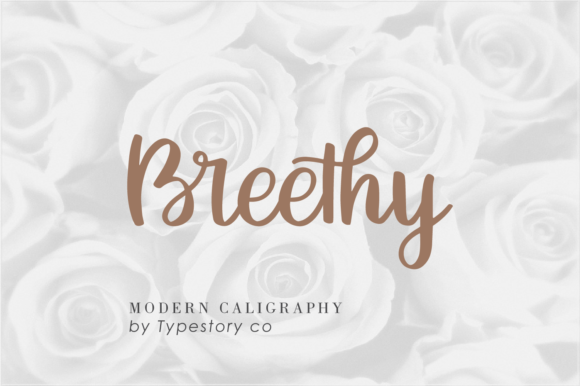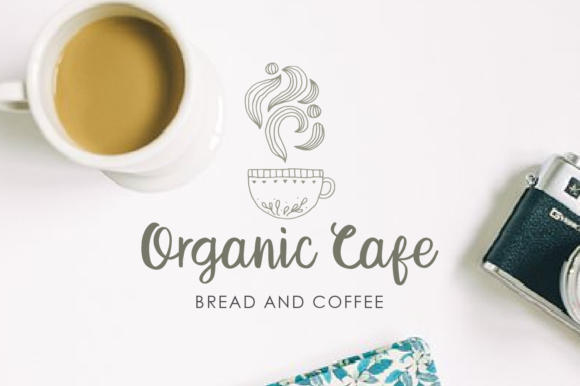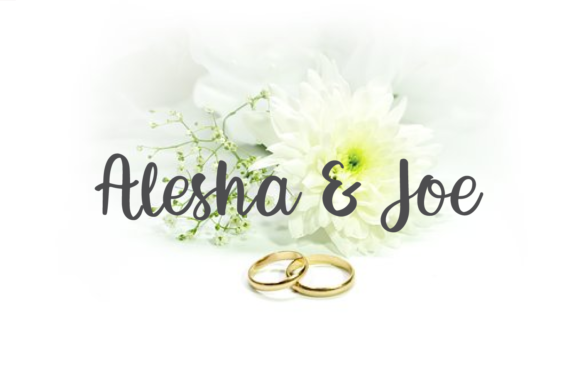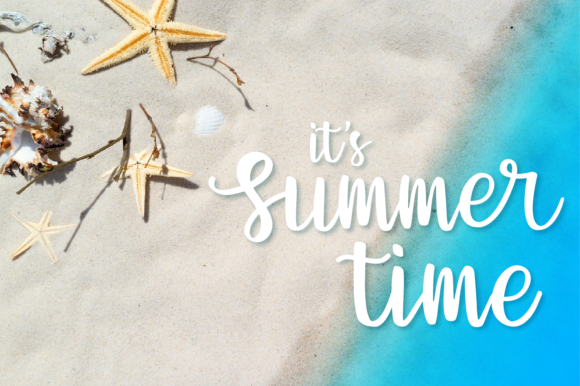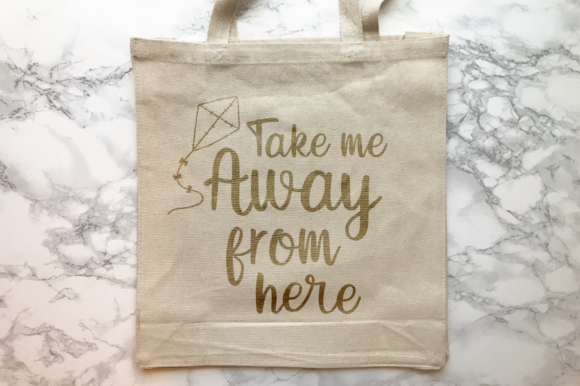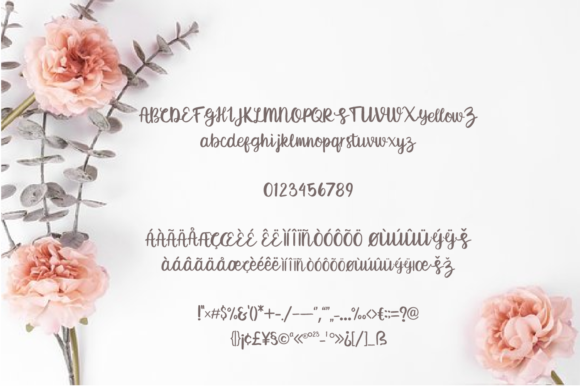
HomeScript FontsBreethy Font Script Fonts Breethy Font FacebookXPinterestWhatsApp Breethy Font Poster 2 Breethy Font Poster 3 Breethy Font Poster 4 Breethy Font Poster 5 Breethy Font Poster 6 About Breethy Font Breethy is inspired by modern calligraphy, making it the ideal crafting font! DOWNLOAD ON CREATIVE FABRICAThis font is sold and delivered by Creative Fabrica. Font Canyon may earn a commission if you buy through this link. People also explored Shemory Font Bastian Melany Font Betterlove Font Vine Font Lipstick Font Cantika Prilia Font Oystersvelt Font Antique Font Activity Font 337 0 TagsBreethy Font Previous articleMinthas Script FontNext articleWinter Morning Font LEAVE A REPLY Cancel reply Comment: Please enter your comment! Name:* Please enter your name here Email:* You have entered an incorrect email address! Please enter your email address here Website: Save my name, email, and website in this browser for the next time I comment. Personal Use Free Archipellago Personal Use Free Read more about this font Unispace Personal Use Free Read more about this font Super Discount Personal Use Free Read more about this font Boldist Personal Use Free Read more about this font BLOG Elegant Wedding Invitation Fonts – Handwritten & Script Fonts Elegant Wedding Invitation Fonts Your wedding day is one of the most important moments of your life, and every detail matters—including your invitation design. Our... Where to Buy American Fonts Online in 2024 How to Cut Any Font on Cricut: Convert a Font to SVG (Free) How to Install and Use Fonts on Windows, macOS, and Web Projects